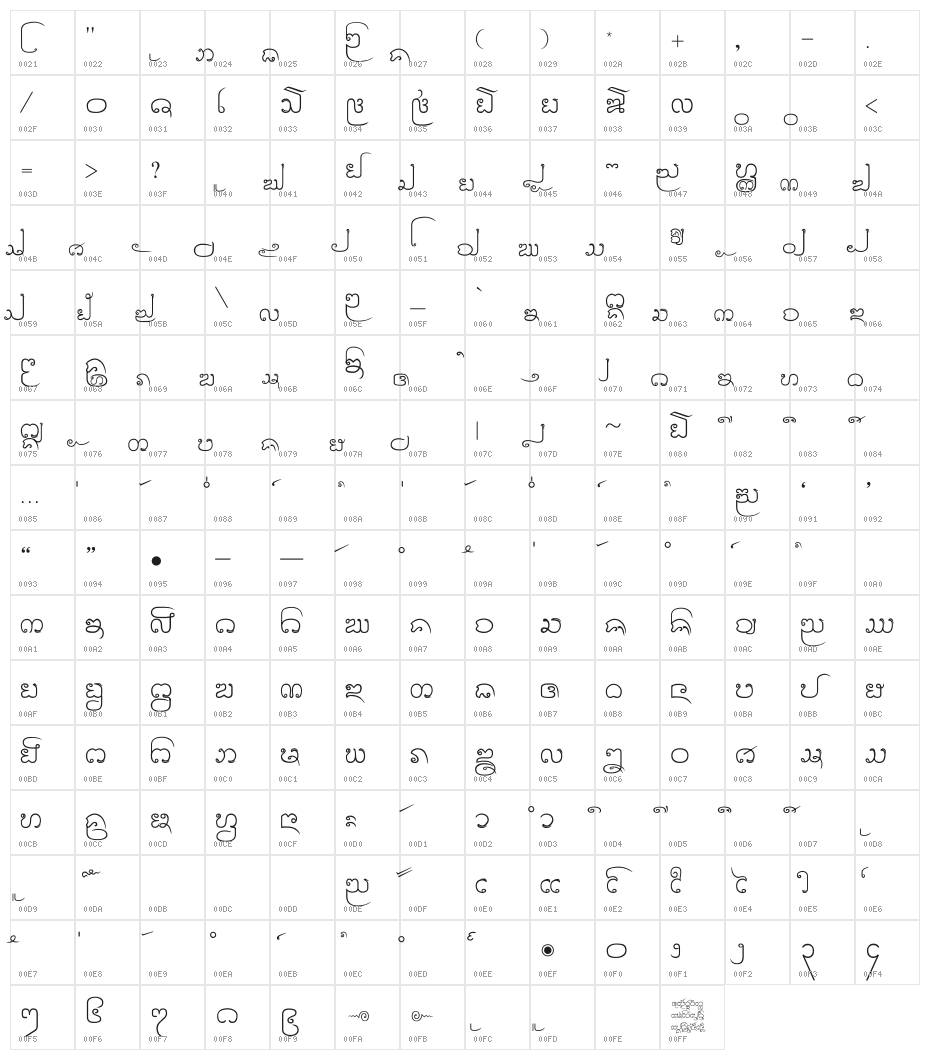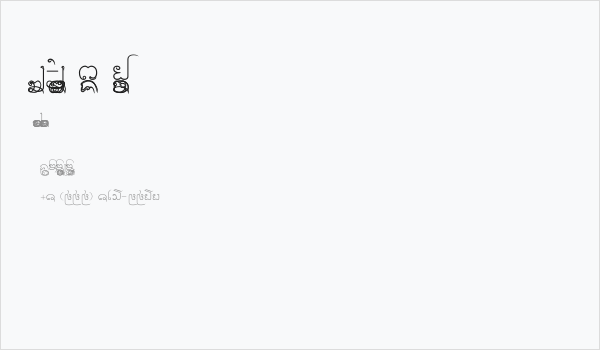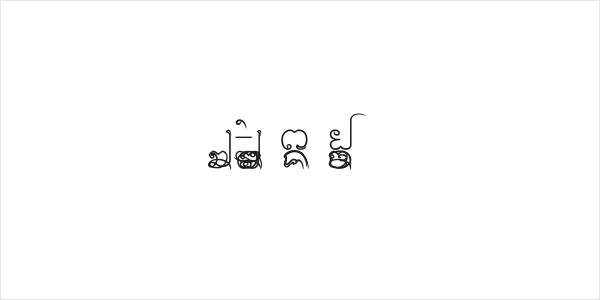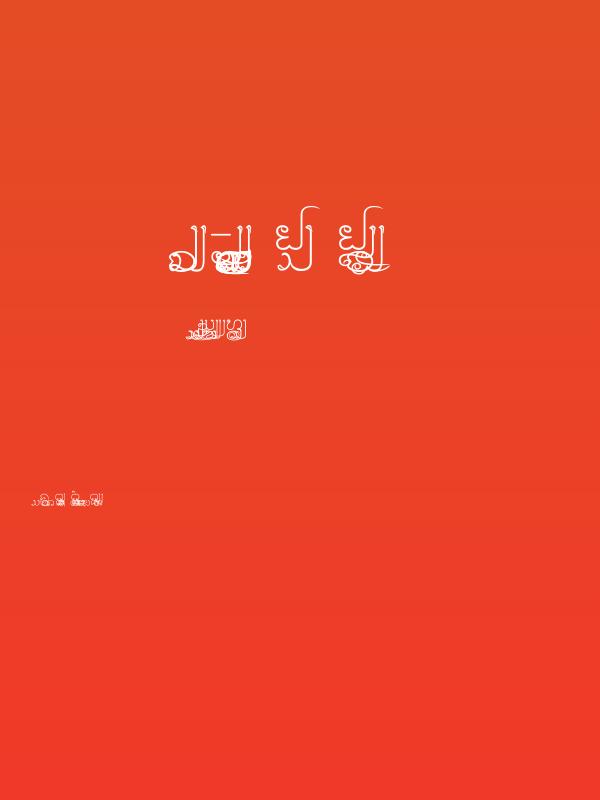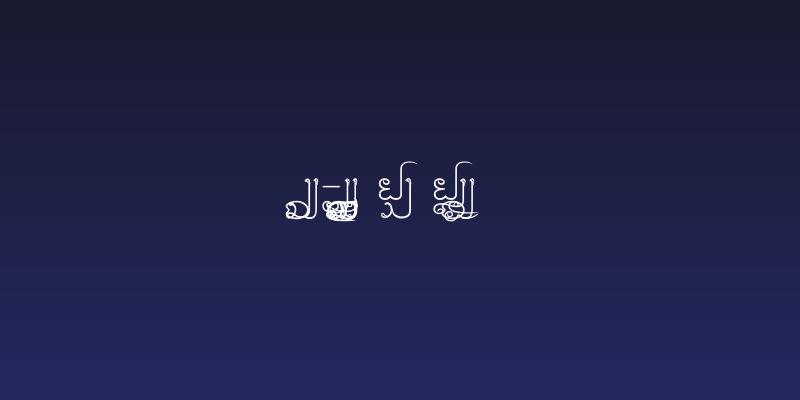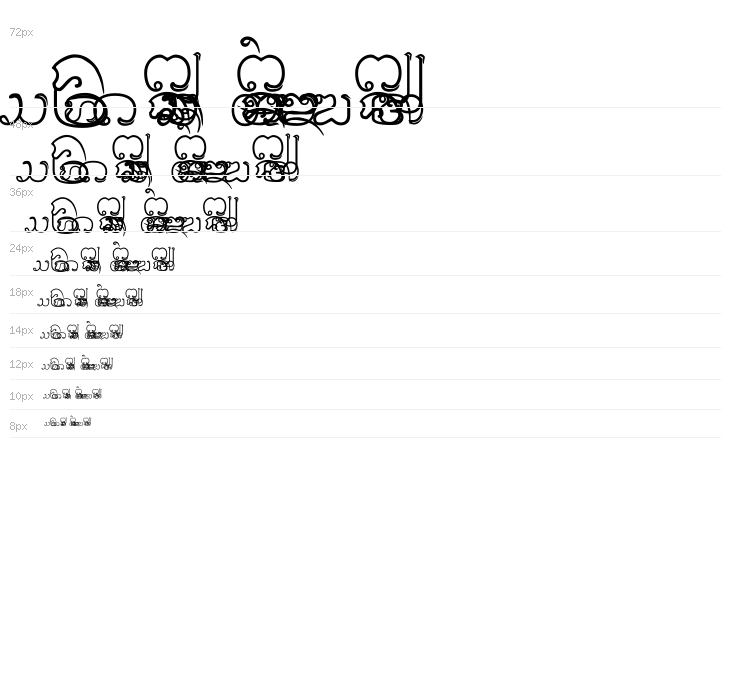
Cr-Paitoon by Berm Font
Cr-Paitoon by Berm Description
This font exhibits a highly decorative and intricate style, characterized by elaborate swirls and flourishes that intertwine with the primary letterforms. The design is ornate, with each character featuring unique embellishments that create a sense of movement and complexity. The font's artistic nature makes it stand out, with a strong visual impact that is both captivating and sophisticated. The characters are well-crafted, with attention to detail evident in the consistent use of curves and loops. This font is not suited for body text due to its decorative nature but excels in creating a dramatic and artistic impression.
| Use Case | Logos, Headlines, Artistic designs |
| Proposed Projects | Ideal for artistic projects, invitations, posters, or any design requiring a dramatic and ornamental touch. |